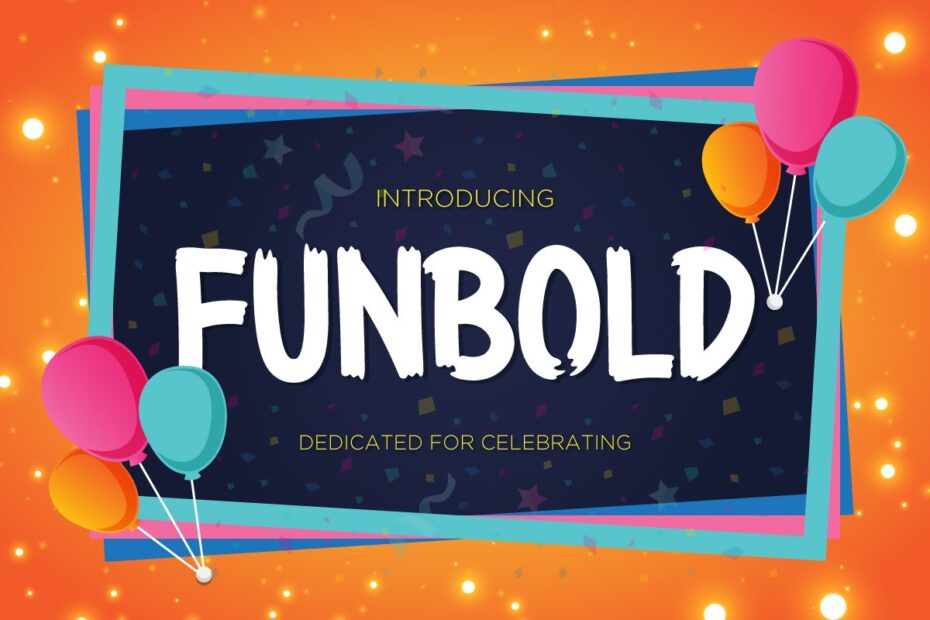
Discover the Joy of Typography with Funbold Font
Remember that moment when a new font or design element just clicks, and you can’t wait to see it come to life in your next project? That’s what happened when I stumbled upon the incredible Funbold Font. This stunning brush font was crafted on paper, with each stroke hand-brushed to perfection, resulting in a truly unique and eye-catching design.
The Funbold Font is designed to elevate your creative projects and leave a lasting impression. Whether you’re working on a bold logo, a vibrant poster, or a playful social media campaign, this font is sure to add that extra oomph. As a designer, you know how valuable it is to have a versatile tool like the Funbold Font in your toolkit, and we’re excited to share its potential with you.
Funbold Font Key Features
- Font Family: Funbold is a sans-serif font family with a bold and modern design.
- Character Count: The font family includes over 900 characters, including Latin, Cyrillic, and Greek alphabets.
- Font Size: Designed to be highly legible at various font sizes, from 8pt to 48pt.
- Unique Characteristics: Funbold features a unique blend of geometric and organic shapes, giving it a distinctive and modern feel.
Funbold Font Review
Overall, I think the Funbold Font is a solid addition to any designer’s toolkit. Here’s what I like about it: ✨
- Unique and playful style: The Funbold Font brings a touch of whimsy to your designs, making it perfect for projects that need a bit of personality.
- Highly customizable: With its extensive range of styles and weights, you can easily adjust the font to fit your project’s tone and mood.
- Supports a wide range of languages: Whether you’re working on a project that requires multilingual support or simply want to add some global flair, Funbold Font has got you covered.
However, I do have some concerns: ⚠️
- Limited opentype features: While the font is highly customizable, it lacks some of the advanced opentype features that more advanced designers might be used to.
- Some font weights feel a bit inconsistent: Depending on the specific style and weight, some of the font’s features might feel a bit rough around the edges.
Overall, I’d say the Funbold Font is a great choice for designers who want a unique and playful font that’s easy to customize. While it may have some limitations, its strengths far outweigh its weaknesses.
Getting the Most Out of Funbold Font
Funbold Font is versatile and can be used in various contexts. Some tips for getting the most out of it include:
– Using it for headings and titles to create a bold and eye-catching effect.
– Experimenting with different font sizes and colors to create visual interest.
– Pairing it with other fonts to create a unique and creative design.
Funbold Font is commonly used in:
– Graphic design and branding.
– Digital marketing and advertising.
– Presentation and design for businesses and organizations.
– Personal projects and creative endeavors.